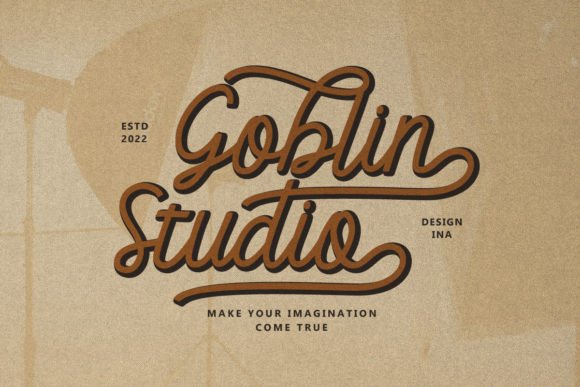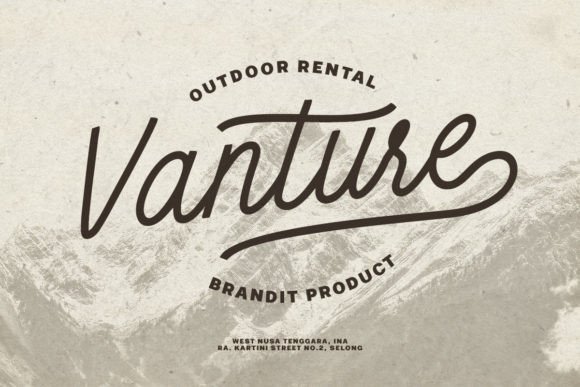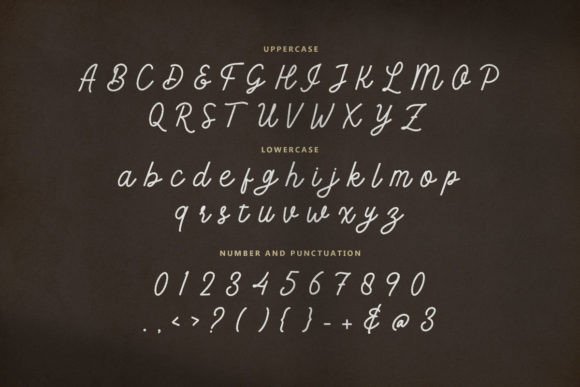
Introduction to Meraline Font
As designers, we’ve all been there – staring at a blank page, trying to find the perfect font to bring our creative project to life. It’s that moment of inspiration when the right font can make all the difference. Imagine a font that’s not only elegant but also versatile, suitable for a wide range of designs, from logotypes to quotes and apparel.
Enter the Meraline Font, a stunning monoline script that’s about to revolutionize your design game. With its high-quality, hand-lettered aesthetic and transparent background, this font is a treasure trove for designers looking for a free download that’s both stylish and professional. Whether you’re working on a personal project or a commercial design, the Meraline Font is sure to elevate your design resource and leave a lasting impression.
But what makes the Meraline Font truly valuable is its ability to add a touch of sophistication to any design. With its uppercase, lowercase, and alternate characters, you can create a unique and stunning visual effect that sets your design apart from the rest.
Key Features of Meraline Font
- High-quality, professional design ideal for creative projects
- Features a transparent background, allowing for easy layering and customization
- Perfect for use in logos, branding materials, and other design elements that require a unique and eye-catching look
- Designed with a high resolution of 300 DPI for crisp, clear text and graphics
- Includes a range of characters, including uppercase and lowercase letters, numbers, and punctuation marks
Honest Review: Meraline Font
As a designer, I’m always on the lookout for high-quality design resources to elevate my creative projects. Recently, I stumbled upon the Meraline Font, and I must say, it’s been a game-changer.
Here’s what works well:
- ✨ High-quality typography: The Meraline Font boasts crisp, clean lines and a sophisticated feel that’s perfect for any design project.
- ✨ Versatile: This font is incredibly versatile, suitable for everything from logo design to web design, and even print materials.
However, I do have a few concerns:
- ⚠️ Limited font styles: While the Meraline Font is available in multiple weights, it’s not as extensive as some other fonts on the market.
- ⚠️ Not ideal for bold text: Due to its elegant design, the Meraline Font doesn’t work as well for bold, attention-grabbing text.
Overall, I’m impressed with the Meraline Font’s high quality and versatility. It’s become a go-to font for many of my design projects, and I’m confident it will do the same for yours.
Tips for Getting the Most Out of Meraline Font
To get the most out of Meraline Font, experiment with different font sizes, colors, and styles to match your creative project’s tone and aesthetic. Take advantage of the transparent background feature to create visually appealing designs.
Meraline Font is ideal for various design projects, including logos, posters, and social media graphics. Its high-quality design and transparent background make it a versatile resource for creative professionals and hobbyists alike.
Alternatives to Meraline Font
Great Vibes is a high-quality, elegant script font perfect for creative projects requiring a touch of sophistication. It’s ideal for invitations, posters, and other design elements where a refined look is desired. Great Vibes has a similar feel to Meraline Font but with a more classic, timeless appeal.
Alex Brush is a beautiful, handwritten font ideal for designers seeking a high-quality, free download for their creative projects. It features a transparent background and a delicate touch, making it suitable for wedding invitations, quotes, and other design elements where a personal touch is needed. Compared to Meraline Font, Alex Brush has a more whimsical and romantic feel.
Dancing Script is a lively, high-quality font perfect for designers working on projects that require a fun and energetic vibe. It’s ideal for social media graphics, advertisements, and other design elements where a bold and playful look is desired. While Meraline Font has a more elegant feel, Dancing Script is more dynamic and attention-grabbing.